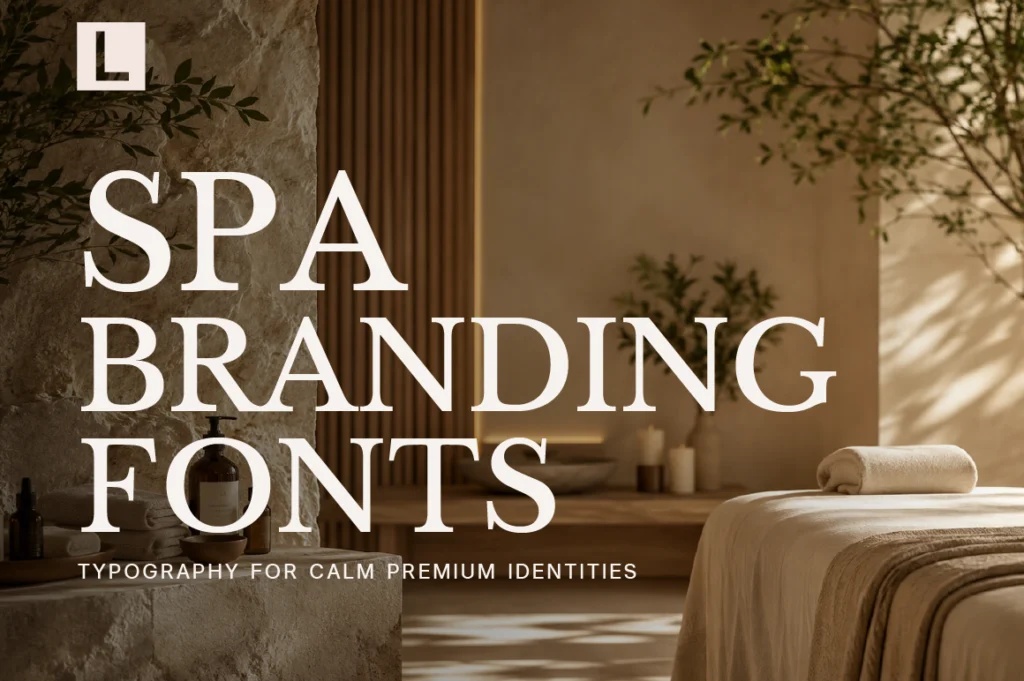
Best Fonts for Luxury Spa Branding: Typography for Calm Premium Identities
Spa Branding Fonts - Typography for Calm Premium Identities
A luxury spa is designed around a feeling. From the moment a guest enters the space, everything is carefully considered to create calm, comfort, and a sense of escape.
The same principle should apply to the brand identity.
Typography appears on the spa logo, treatment menus, product packaging, website, booking system, signage, and social media. When those elements share a thoughtful typographic language, the entire brand begins to feel more cohesive and premium.
For wellness businesses, the right font should not simply look beautiful. It should help communicate the feeling customers expect to experience.
Why Typography Matters in Spa Branding
Wellness branding is highly emotional.
Customers are often looking for more than a treatment. They are looking for relaxation, self-care, confidence, and a moment away from their everyday routine.
Typography can reinforce those emotions through qualities such as:
• Calm
• Elegance
• Warmth
• Trust
• Natural sophistication
• Premium simplicity
A carefully selected typeface can make a spa feel more inviting before a customer even books an appointment.
Recommended for Calm Wellness Brands
Asvata brings a calm, elegant, and purposeful character that works naturally for wellness brands seeking a refined visual identity. Its understated personality makes it suitable for spa identities, premium self-care brands, wellness campaigns, and sophisticated packaging.
What Makes a Good Spa Branding Font?
Spa typography should feel effortless.
Overly decorative fonts can make a wellness brand feel busy, while extremely rigid typography may create a cold or clinical impression.
A strong spa font usually benefits from:
• Soft visual rhythm
• Excellent readability
• Refined proportions
• Comfortable spacing
• Contemporary elegance
• Versatility across print and digital
The goal is to create an atmosphere of calm without sacrificing professionalism.
Recommended for Modern Wellness Branding
Lenia Sans offers a soft yet confident direction for modern wellness identities. Its clean structure makes it particularly useful for spa websites, treatment menus, social media, booking interfaces, and minimalist wellness campaigns. LTS also positions Lenia Sans as effective for lifestyle and wellness brands.
Serif Fonts Can Make Wellness Feel More Premium
Wellness branding doesn’t have to rely entirely on minimal sans serif typography.
A sophisticated serif can introduce warmth, elegance, and editorial character while maintaining a calm visual atmosphere.
This approach works especially well for:
• Luxury spas
• Boutique retreats
• Premium skincare
• Holistic wellness
• Private wellness clubs
• High-end self-care brands
The key is choosing a serif with enough restraint to complement the peaceful nature of the brand.
Recommended for Luxury Spa Identities
Serelia brings soft contemporary elegance to wellness branding. Its graceful curves and refined editorial character make it particularly effective for spa branding, skincare campaigns, premium packaging, and feminine wellness identities. LTS explicitly highlights Serelia for spa branding and wellness campaigns.
Typography Across the Spa Experience
A spa brand communicates through far more than its logo.
Typography may appear on:
• Treatment menus
• Booking websites
• Appointment cards
• Product packaging
• Gift vouchers
• Interior signage
• Social media
• Loyalty cards
• Staff uniforms
• Wellness guides
Consistency across these touchpoints makes the brand experience feel intentional.
A guest should be able to move from the website to the treatment room without feeling like they’ve entered a completely different brand environment.
Recommended for Premium Wellness Content
The Letter Editorial provides a polished editorial voice for longer wellness content, treatment guides, brochures, brand stories, and premium publications. Its structured rhythm can bring sophistication to information-heavy materials without making them feel clinical.
Featured Fonts from Lettertype Studio
• Asvata — Calm and refined serif for sophisticated wellness identities.
• Lenia Sans — Soft contemporary sans serif for modern spa and digital wellness brands.
• Serelia — Elegant editorial serif for luxury spa, skincare, and wellness branding.
• The Letter Editorial — Refined typography for wellness publications and long-form content.
• Mirevielle — Delicate editorial character for premium self-care packaging and feminine wellness brands.